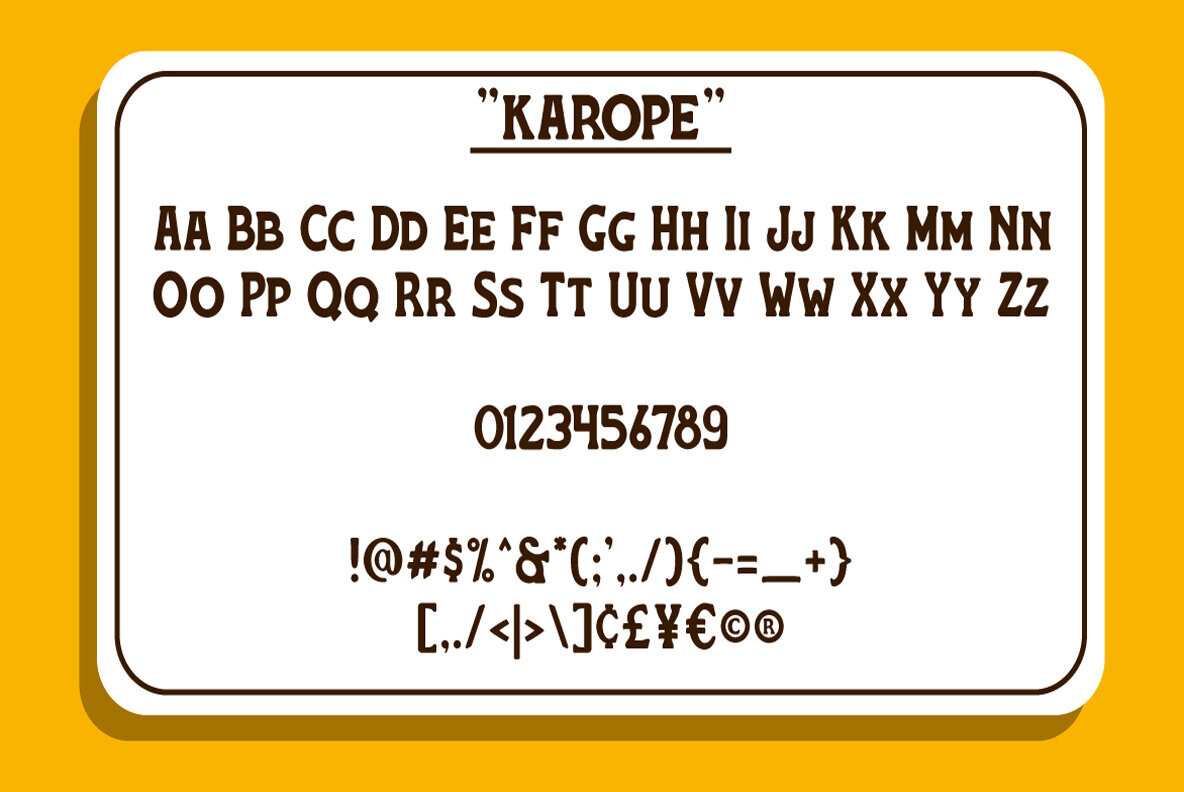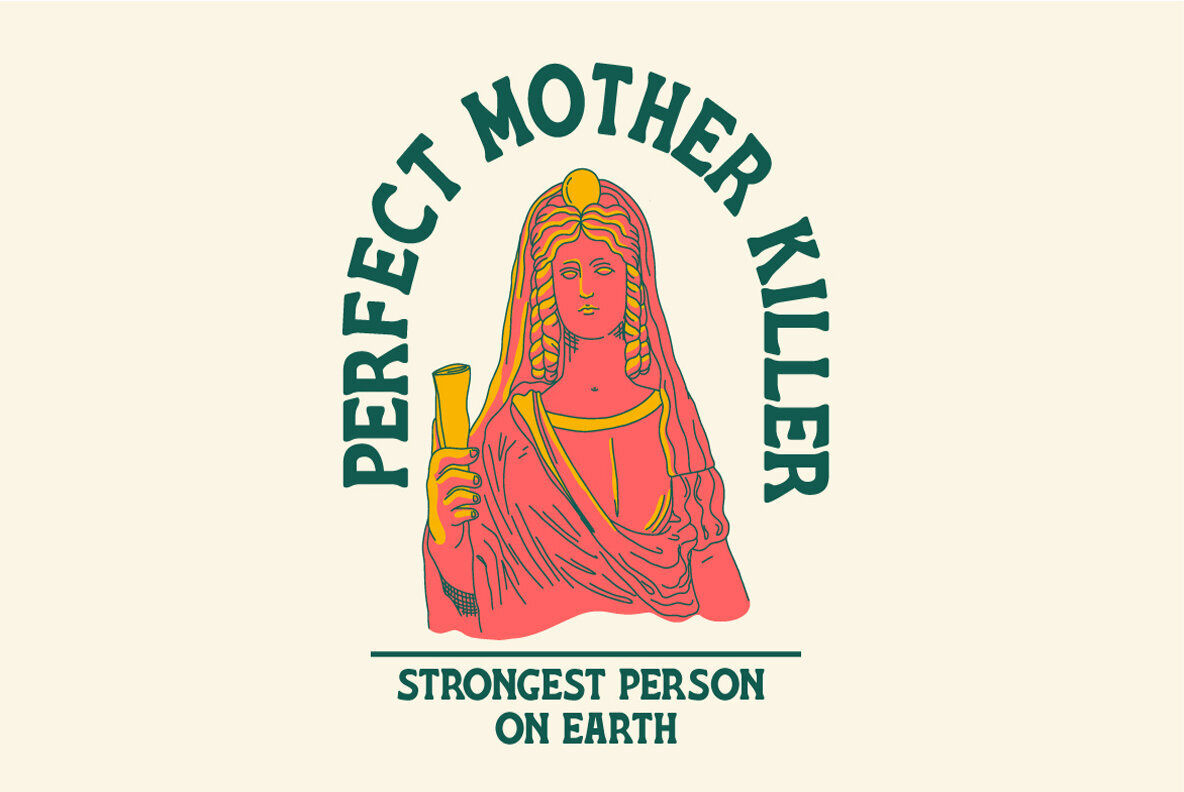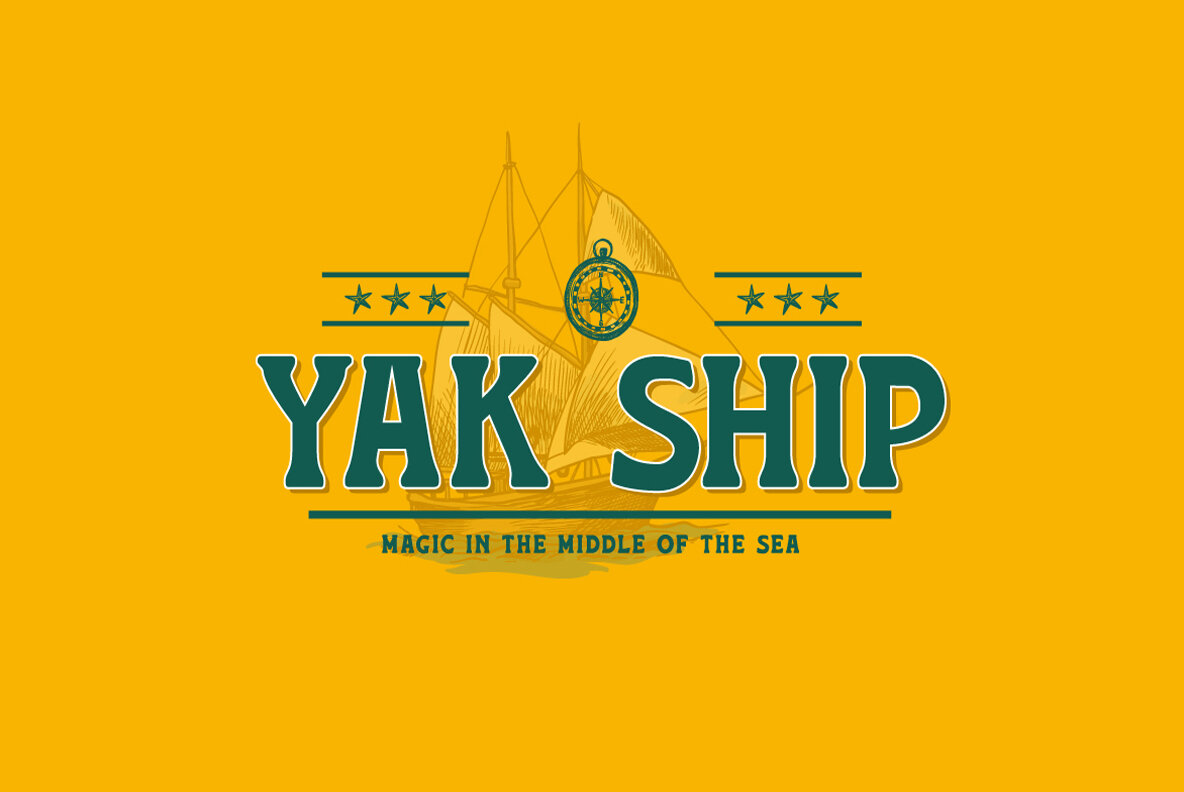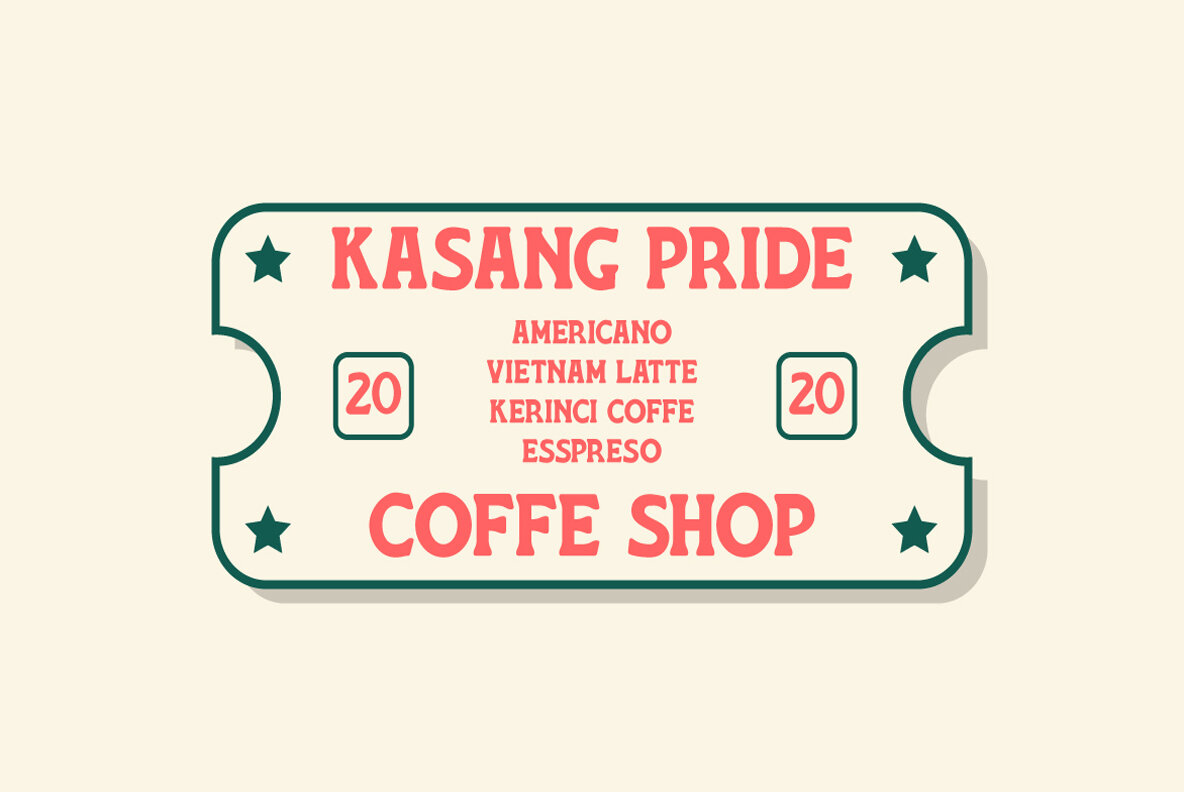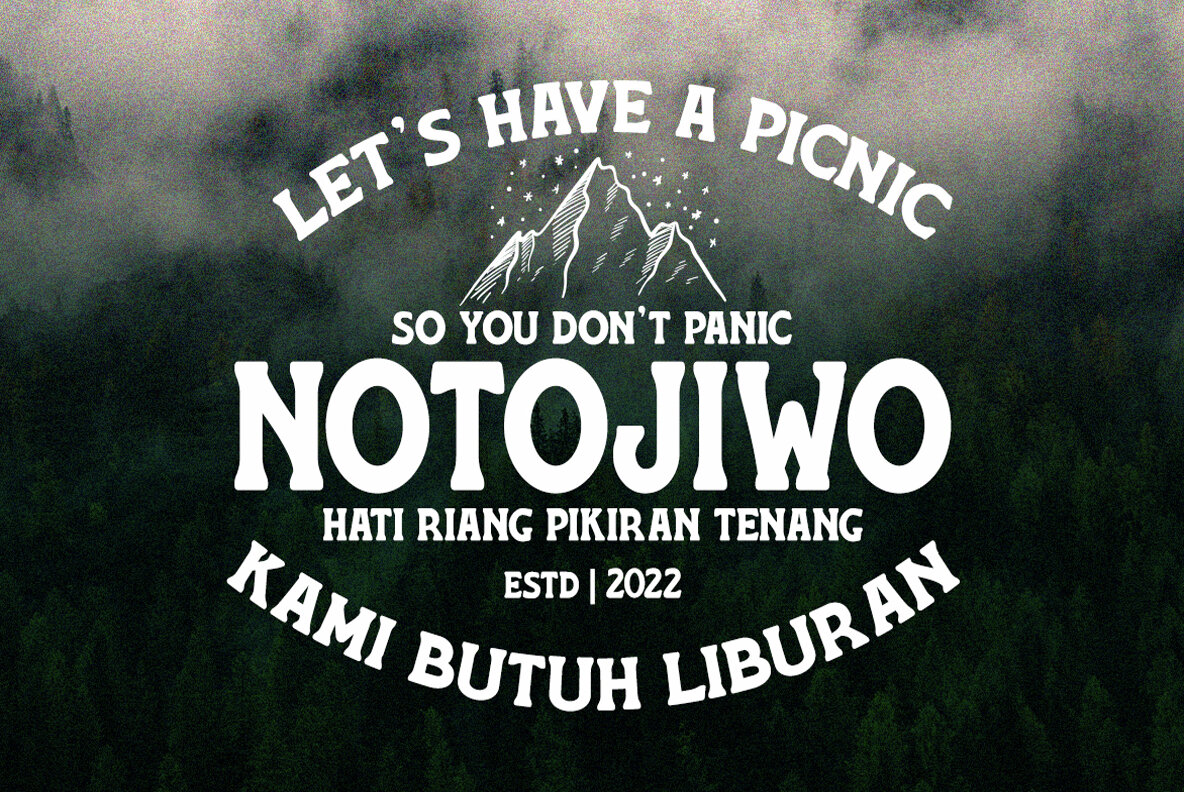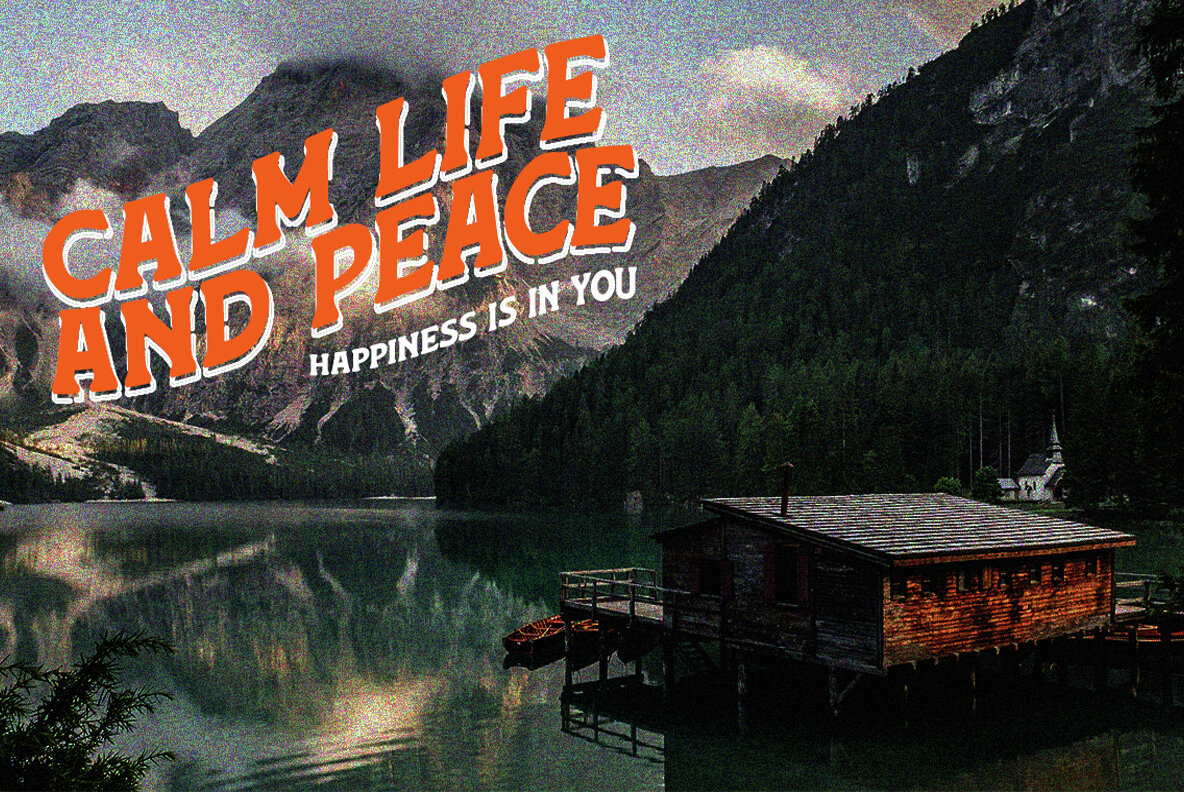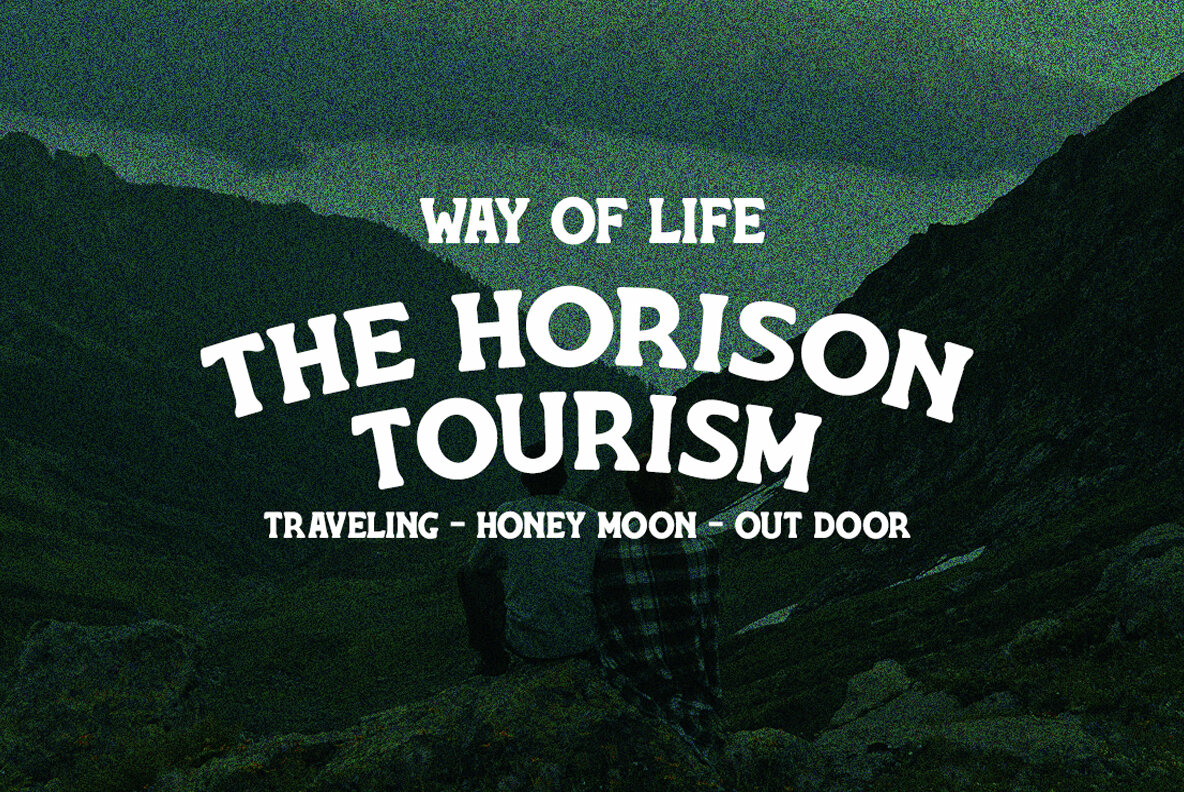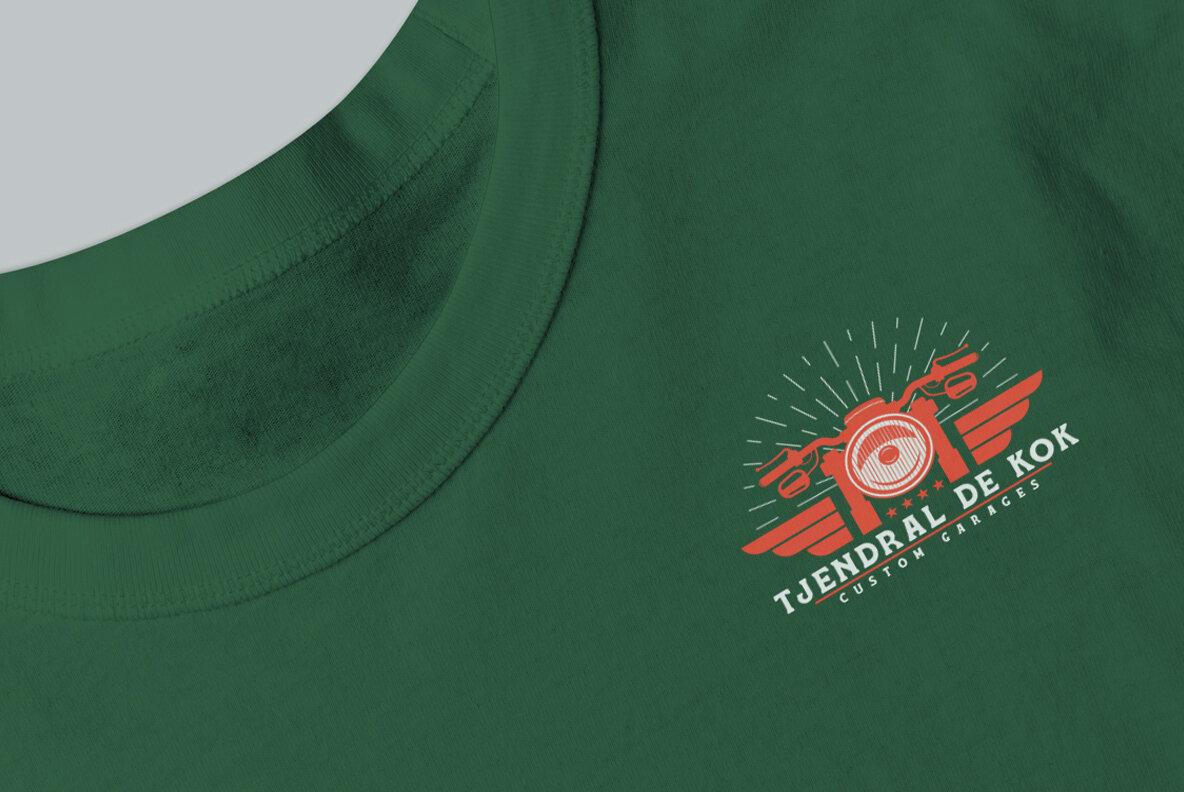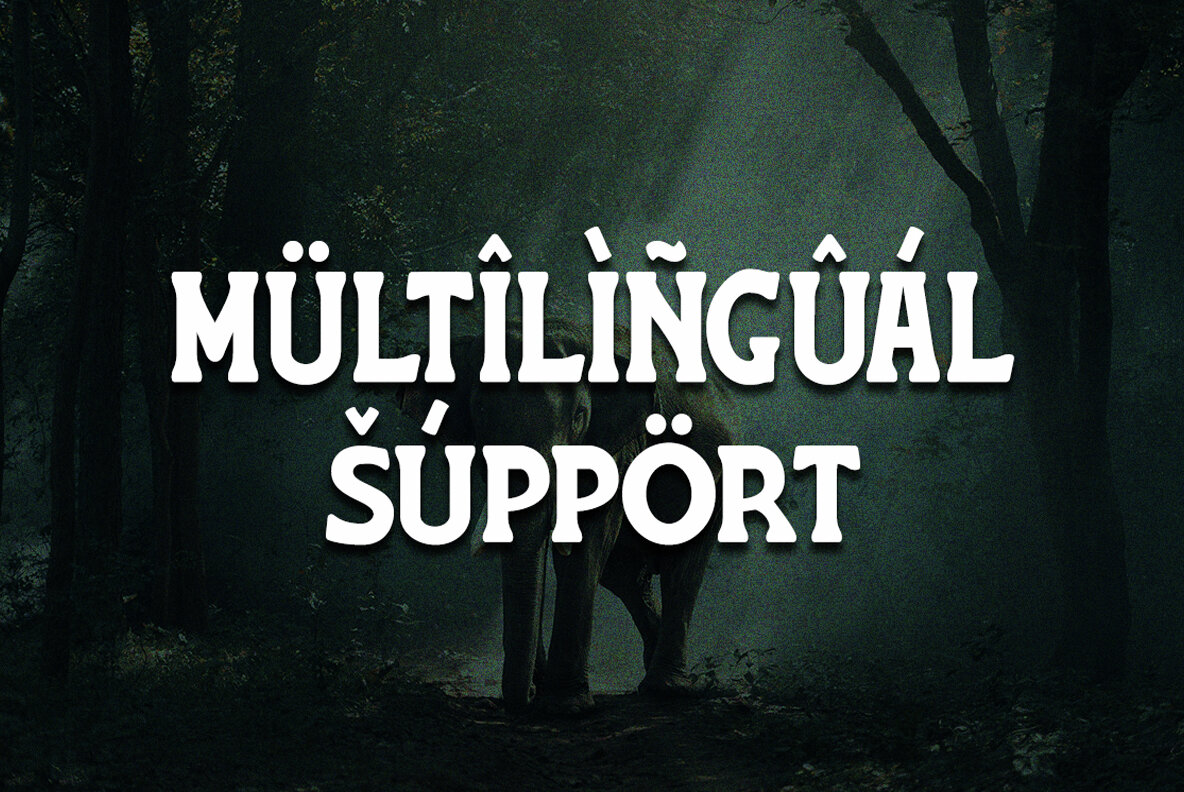
Karope Font
Karope Regular
Karepo is a remarkably cool and dynamic serif font designed to elevate the visual appeal of your display. This font brings a sense of modernity and vitality to your designs, making them more captivating and engaging. Ideal for graphic design, social media, and branding projects, Karepo seamlessly integrates into the contemporary design landscape, adding a touch of sophistication and charm. Elevate your visual communication with this versatile serif font, perfect for creating a lasting impact across various platforms.